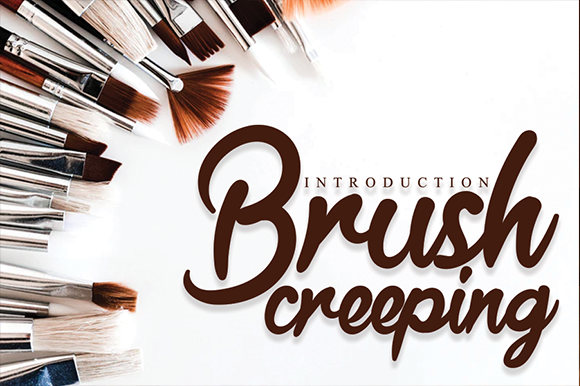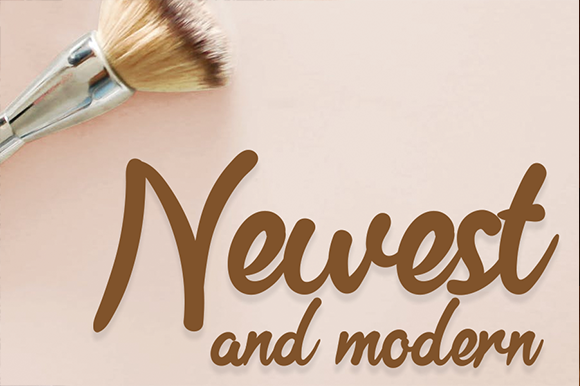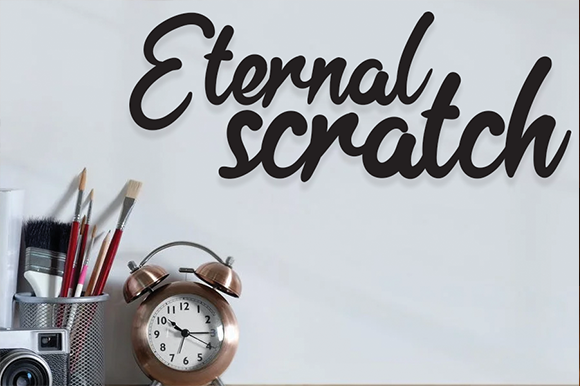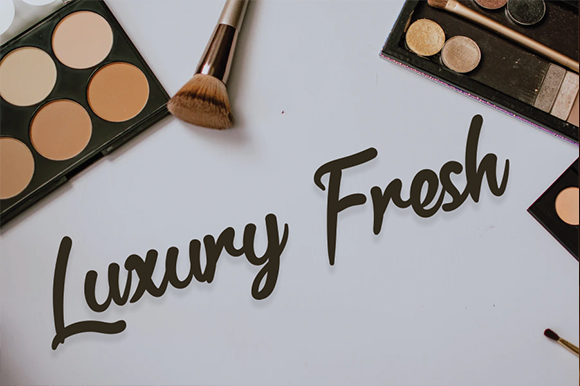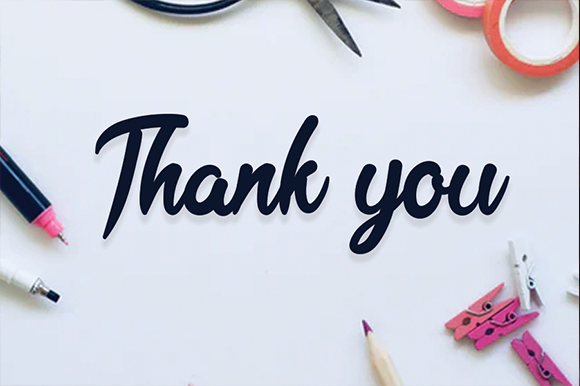
Brush Creeping Font
About Brush Creeping Font
Brush Creeping results out of a stunning pairing of a brush pen and pencil that makes it look incredibly endearing and authentic. Use this gorgeous and unique handwritten font to bring any DIY project to life!